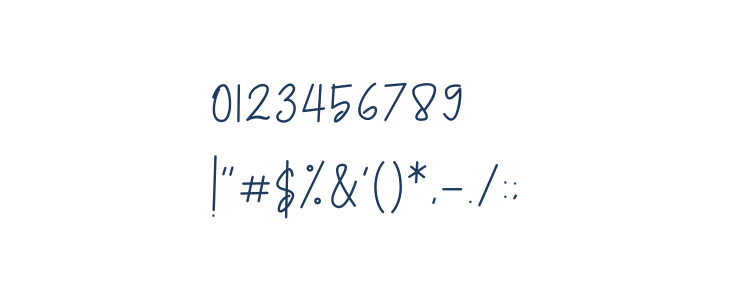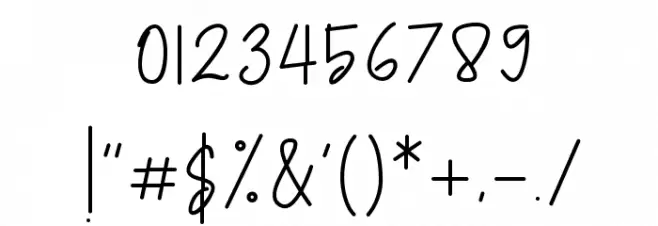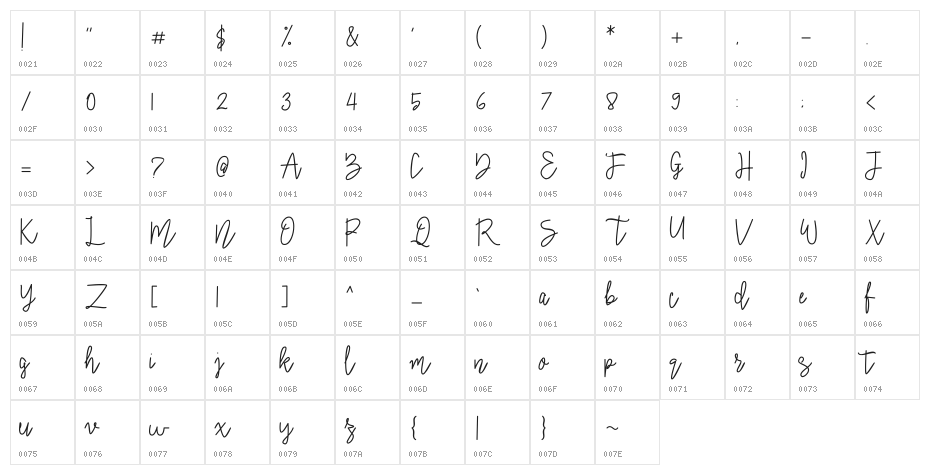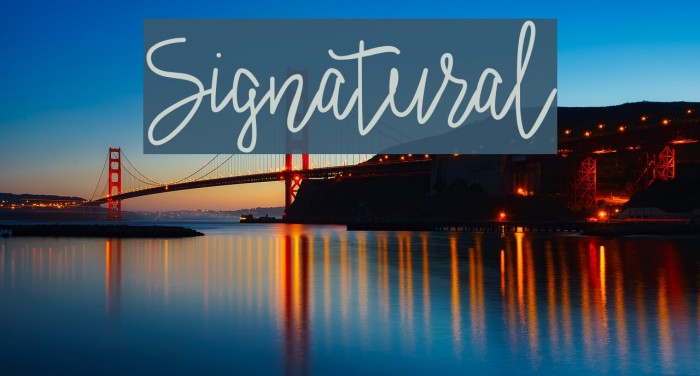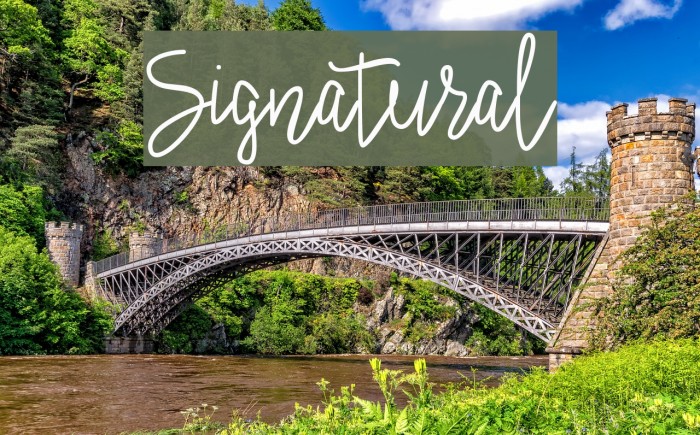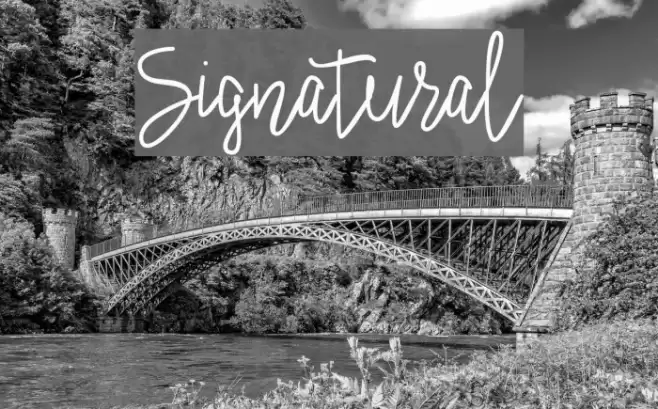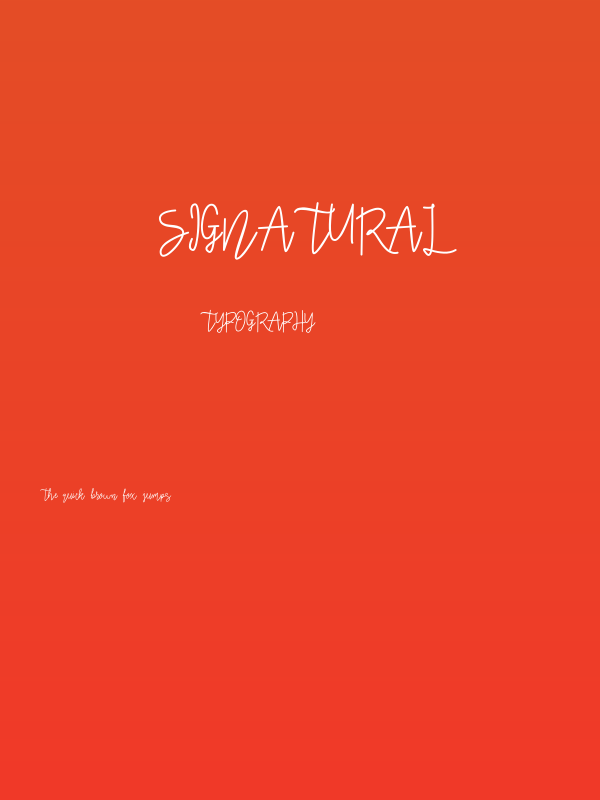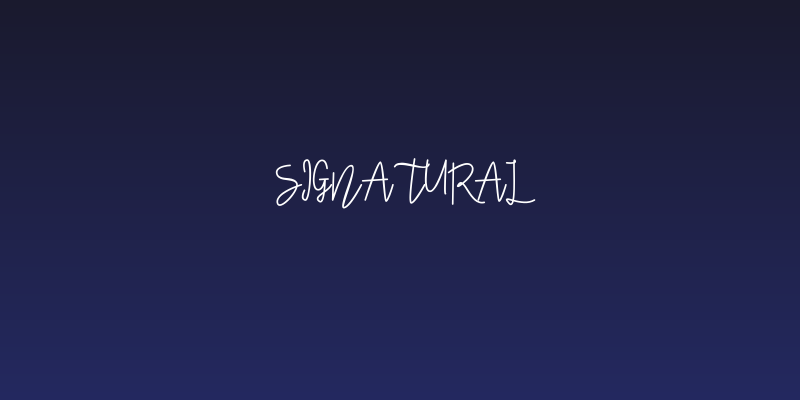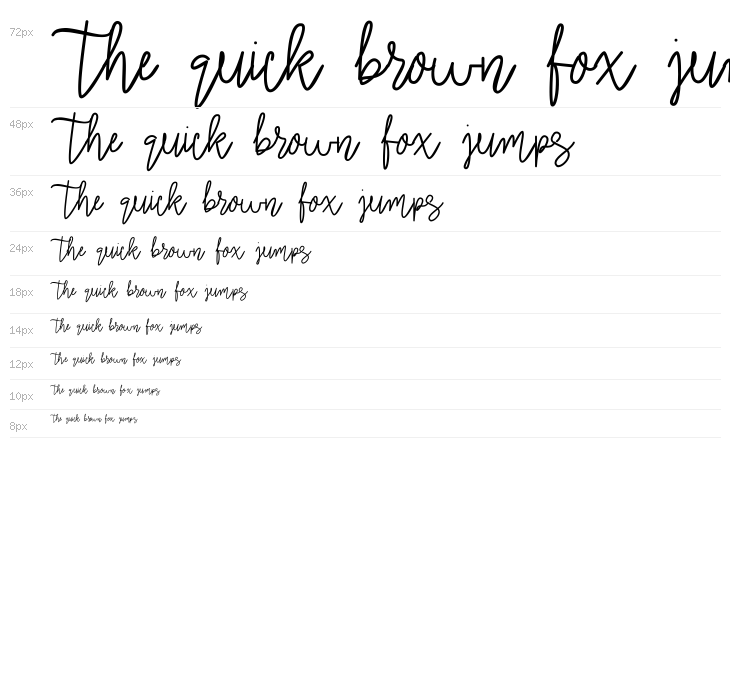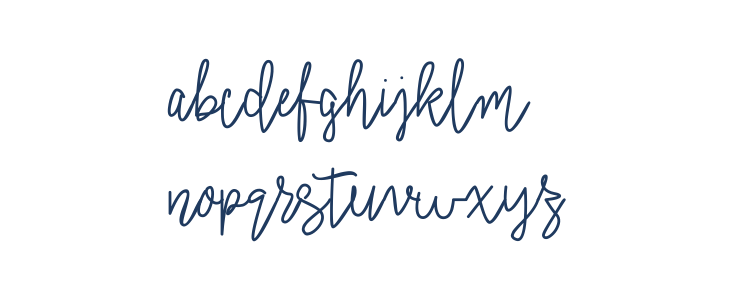
Signatural Font
Signatural Description
This font embodies a casual, handwritten style with a modern twist. The characters are fluid and connected, resembling a personal signature. The uppercase letters maintain a consistent height, while the lowercase letters have a playful, slightly irregular baseline, adding to the font's charm. The numbers and special characters are designed to match the overall aesthetic, ensuring a cohesive look. The strokes are smooth and moderately thick, providing good readability while maintaining an elegant appearance.
| Use Case | Logos, Invitations, Social media graphics |
| Proposed Projects | Ideal for personal branding, invitations, greeting cards, and social media graphics. |